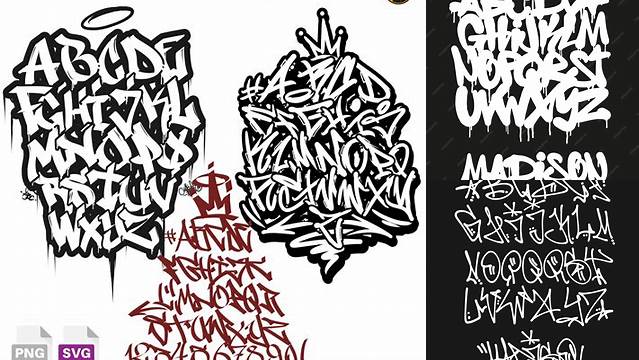
Graffiti Tag Fonts: Free Downloads For Artists
Hey guys! Ever wanted to add that raw, urban edge to your designs? You know, that authentic street art vibe that just screams cool? Well, you've come to the right place! We're diving deep into the world of graffiti tag fonts and, even better, where you can snag them for free. Whether you're a seasoned designer or just starting out, understanding the power of a good graffiti font can seriously level up your creative game. So, let's get this show on the road and explore the amazing world of graffiti tag fonts, shall we?
1. What is a Graffiti Tag Font?
So, what exactly is a graffiti tag font? Well, think about those iconic, stylized signatures you see sprayed on walls and trains. That's a tag! And a graffiti tag font is simply a digital typeface designed to mimic that handwritten, often rushed, and always expressive style. These fonts capture the energy and rebellion of street art, making them perfect for projects that need a bold and edgy look.
The essence of a graffiti tag font lies in its ability to convey a sense of authenticity and urban grit. Unlike more polished and refined fonts, graffiti tag fonts embrace imperfections, irregular lines, and a certain raw energy. This is what gives them their unique character and makes them so appealing for various design applications. You'll often find that these fonts incorporate elements like drips, splatters, and varying line thicknesses, all contributing to the hand-drawn aesthetic. Whether you're working on a poster, a logo, or even just adding some flair to your social media posts, a well-chosen graffiti tag font can make a huge impact.
2. History and Evolution of Graffiti Tag Fonts
The history of graffiti tag fonts is as rich and vibrant as the art form itself. Graffiti, as we know it today, started to emerge in the late 1960s and early 1970s in the urban landscapes of cities like New York and Philadelphia. Early graffiti tags were simple, often just the artist's nickname or crew name, quickly scrawled onto walls and subway cars. These tags were a form of self-expression, a way for artists to make their mark and claim their space in the city.
As graffiti evolved, so did the styles of tagging. Artists began to experiment with different letterforms, adding flourishes, curves, and intricate details to their tags. This led to the development of various graffiti styles, including bubble letters, wildstyle, and, of course, the classic tag style that we're focusing on here. The digital age has further transformed graffiti, bringing it into the realm of graphic design. Graffiti tag fonts are a direct result of this evolution, allowing designers to capture the essence of street art in a digital format. This has opened up new possibilities for using graffiti in commercial and artistic projects, ensuring that the spirit of this art form continues to thrive and evolve.
3. Key Characteristics of Graffiti Tag Fonts
What makes a graffiti tag font a graffiti tag font? There are a few key characteristics that define this unique style. First and foremost, they have a hand-drawn feel. Think of the rushed, spontaneous strokes of a spray can – that's the vibe these fonts aim to capture. You'll often see irregular lines, varying thicknesses, and a sense of fluidity that mimics the movement of an artist's hand.
Another hallmark of graffiti tag fonts is their boldness. These fonts are meant to stand out, to make a statement. They often feature thick, blocky letters that command attention. Many graffiti tag fonts also incorporate drips, splatters, and other artistic imperfections, adding to their raw and authentic feel. Furthermore, the letterforms themselves are often stylized and unique, reflecting the individual style of the graffiti artist. You might see letters that are slanted, overlapping, or even distorted, all in the name of creating a visually striking and memorable tag. These characteristics combine to create a font style that is both edgy and expressive, perfect for projects that need a touch of urban flair.
Alright, let's get to the good stuff – where can you actually find these awesome graffiti tag fonts for free? The internet is your friend, guys! There are tons of websites out there that offer free fonts, including a great selection of graffiti styles. Sites like DaFont, FontSpace, and 1001 Fonts are fantastic resources. You can browse through categories, search for specific styles, and often even preview the font in action before you download it.
When you're searching for graffiti tag fonts, it's always a good idea to check the license agreement. Many free fonts are available for personal use, but you might need a commercial license if you plan to use them in a project that you're selling or using for business purposes. Also, keep in mind that the quality of free fonts can vary. Some free fonts are incredibly well-designed and polished, while others might have some imperfections. Don't be afraid to try out a few different options and see what works best for your project. With a little bit of searching, you're sure to find some amazing free graffiti tag fonts that will add that perfect urban edge to your designs.
5. Top Websites for Free Graffiti Fonts
Let's dive deeper into some specific websites that are goldmines for free graffiti fonts. DaFont is a classic choice, known for its massive collection of fonts in just about every style imaginable. They have a dedicated graffiti category where you can find tons of graffiti tag fonts, from classic spray-painted styles to more modern and experimental designs. FontSpace is another great option, offering a clean and user-friendly interface and a vast library of free fonts. They also have a handy tagging system that makes it easy to find fonts based on specific themes and styles.